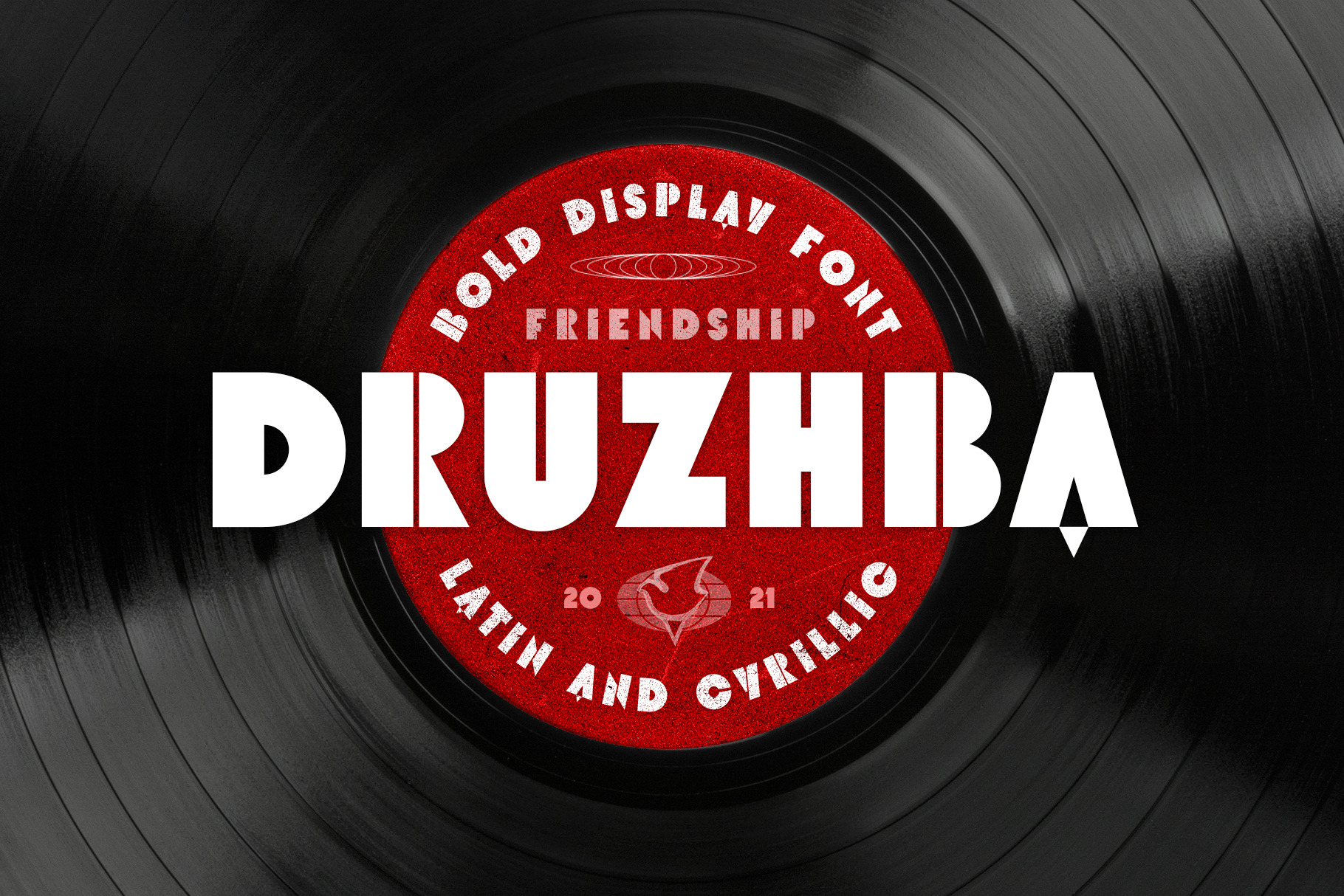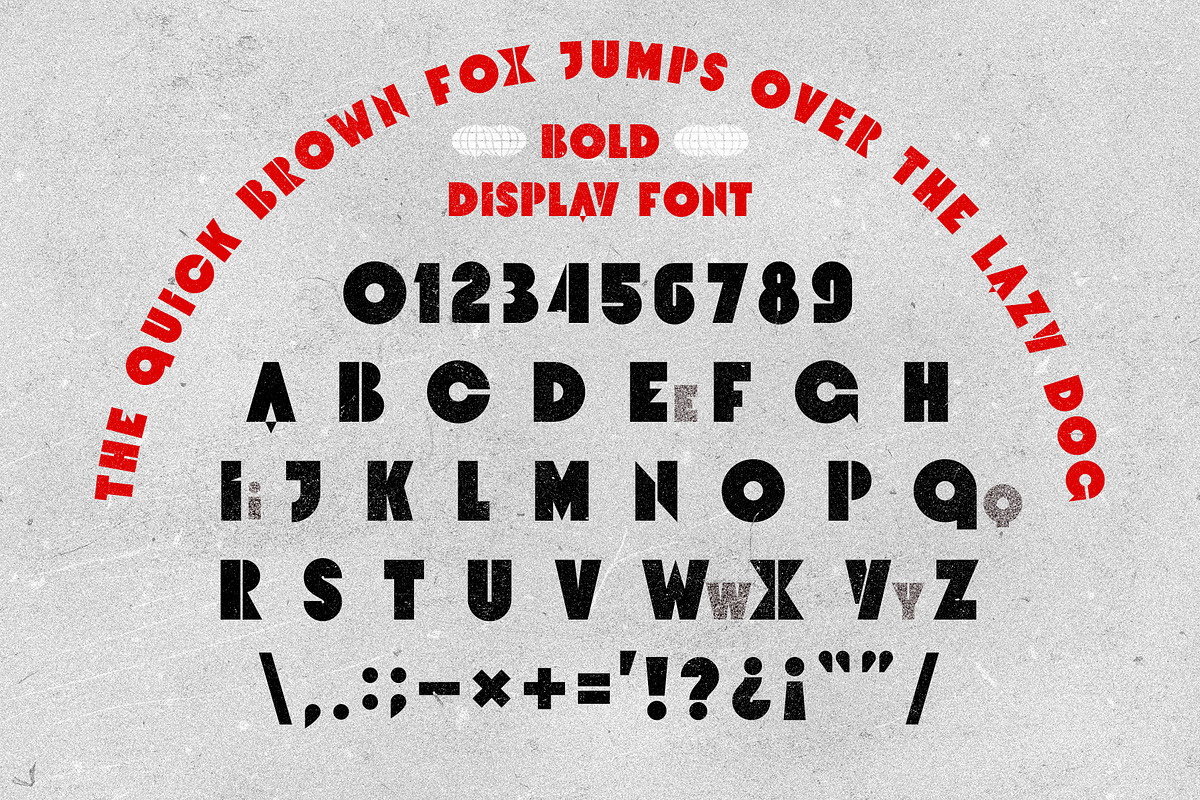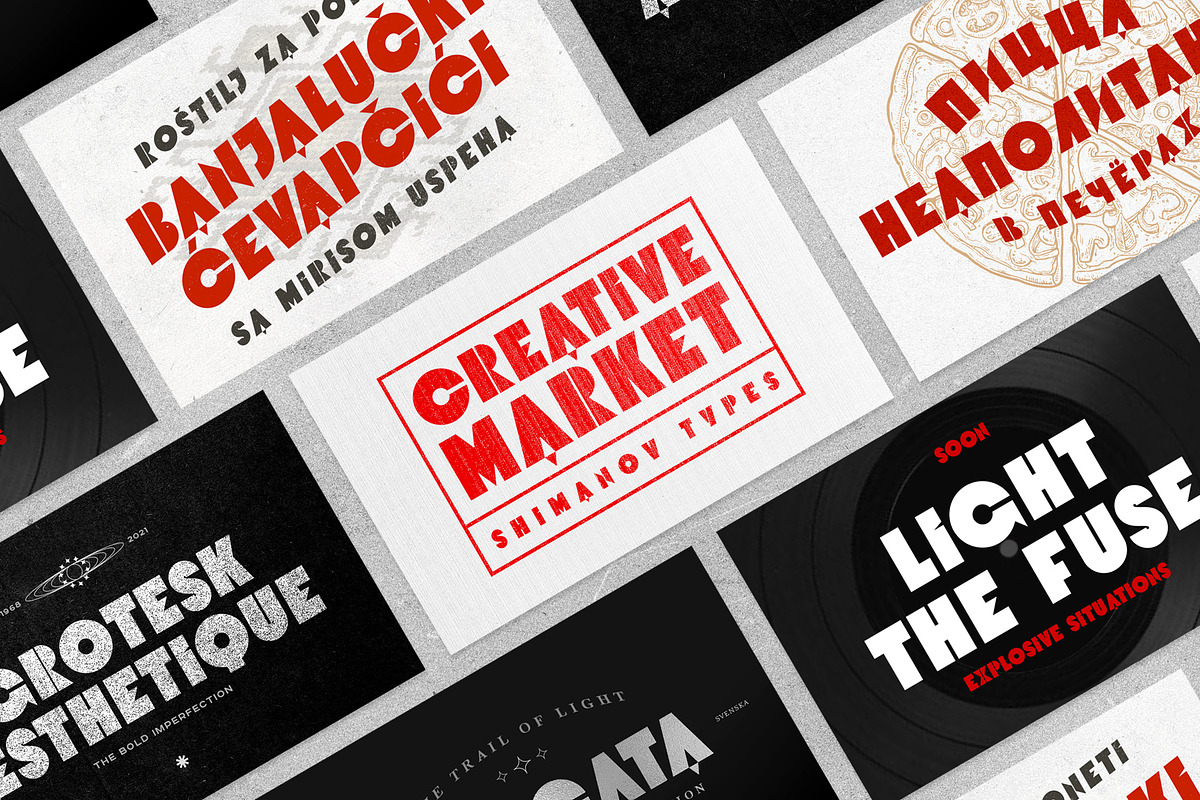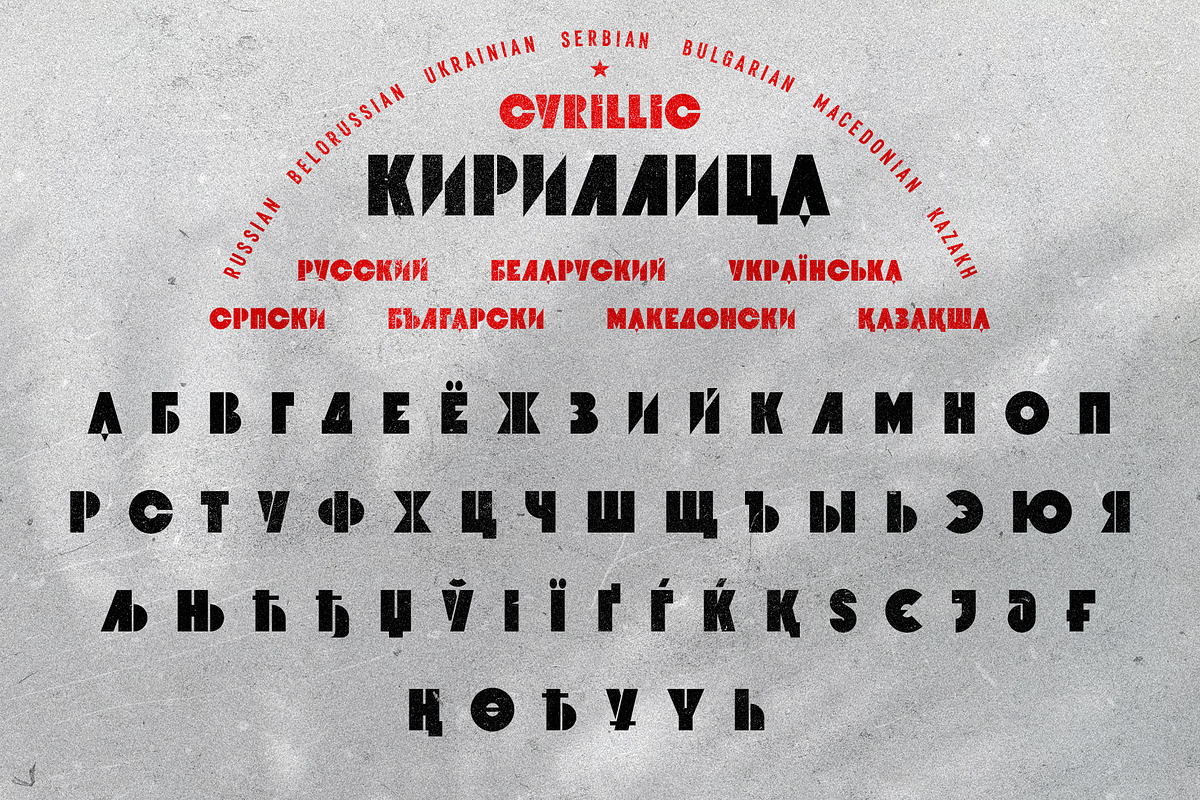
ST-Druzhba retro bold display font
Introducing a retro grotesque called "Druzhba" ("Friendship" in russian). The letterforms are bold and grotesque with retro-futuristic touch. It has some Extended Latin and Cyrillic letters and supports 20+ languages. "ST-Druzhba" created for titles, poster design, web design, branding and packaging works, illustrations, badges and other typography works.
*ST-Druzhba supports languages: Belarusian, Bosnian, Bulgarian, Croatian, Dutch, Dannish, English, German, Kazakh, Macedonian, Norsk, Russian, Serbian, Slovenian, Spanish, Swedish, Ukrainian, and probably others )